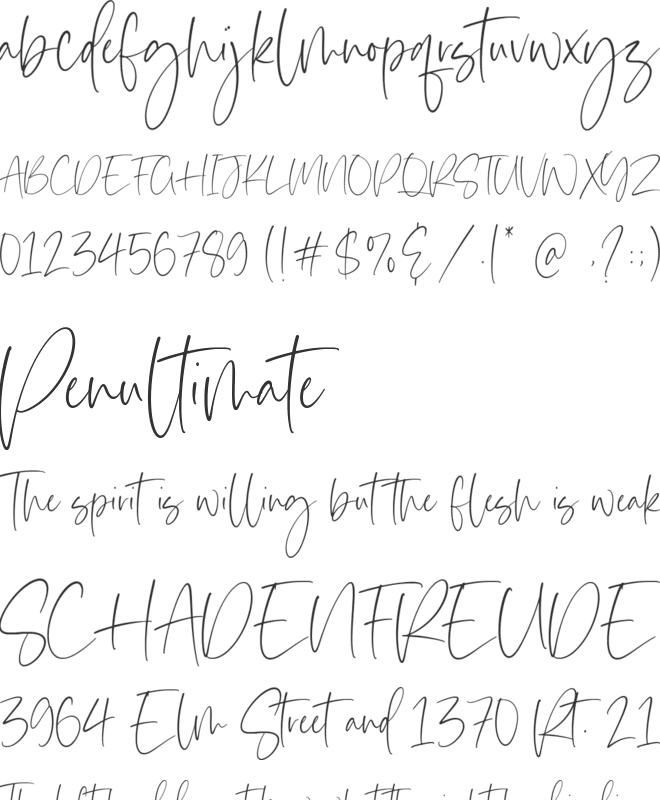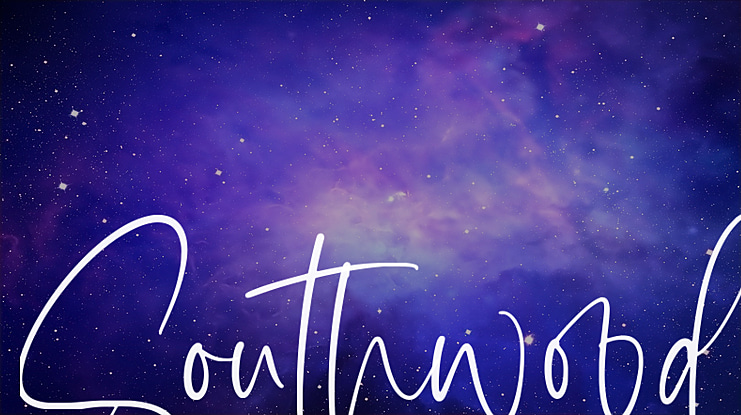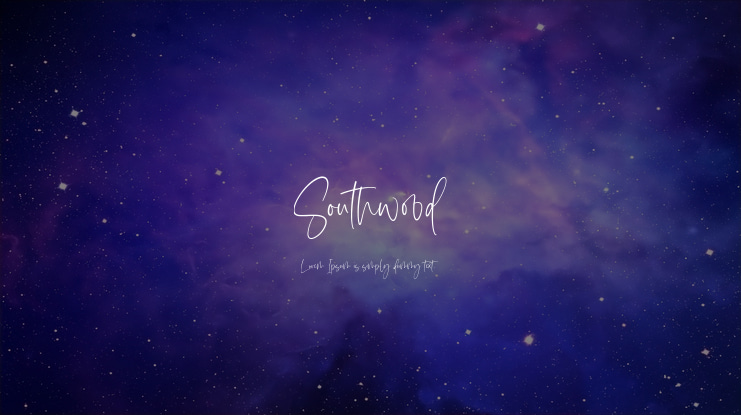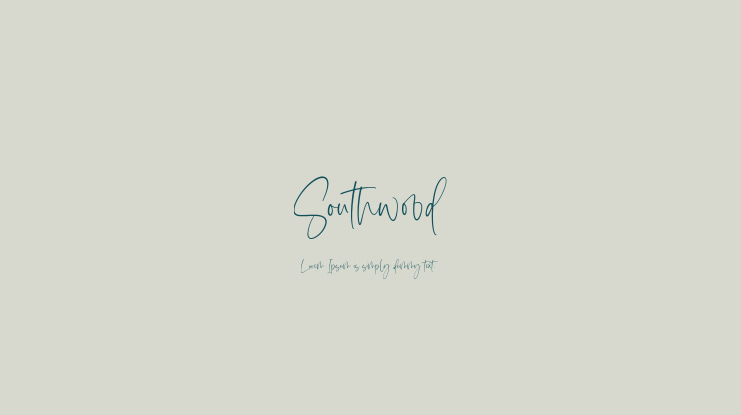
Southwood Font
Southwood is a sweet and delicate handwritten font. Dainty and joyful, this font will be ideal for writing wedding invitations, cards, or any other design that may need a romantic, personalized touch! This font is PUA encoded which means you can access all the glyphs and ligatures with ease!
-Full Set of standard alphabet and punctuation
-handwritten ligatures for a custom, hand-lettered look